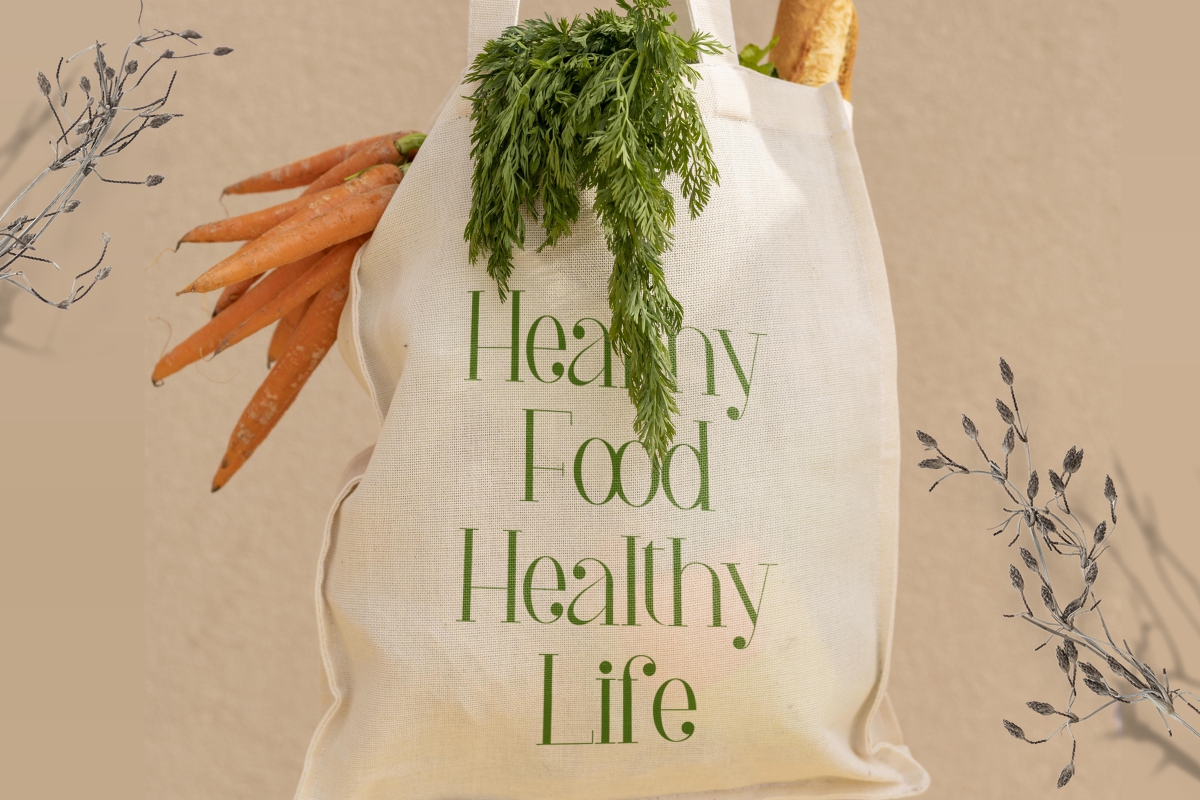
Magic Florist Font
Magic Florist Script Font
This is a stunning elegant serif display font with a touch of luxury created by EdricStudio. This typeface also has a sophisticated and stylish look making it suitable for industries, such as agriculture, author, boutique, cosmetic, craft, electronic, fashion, florist, food research, health, publishing, salon & spa, etc.